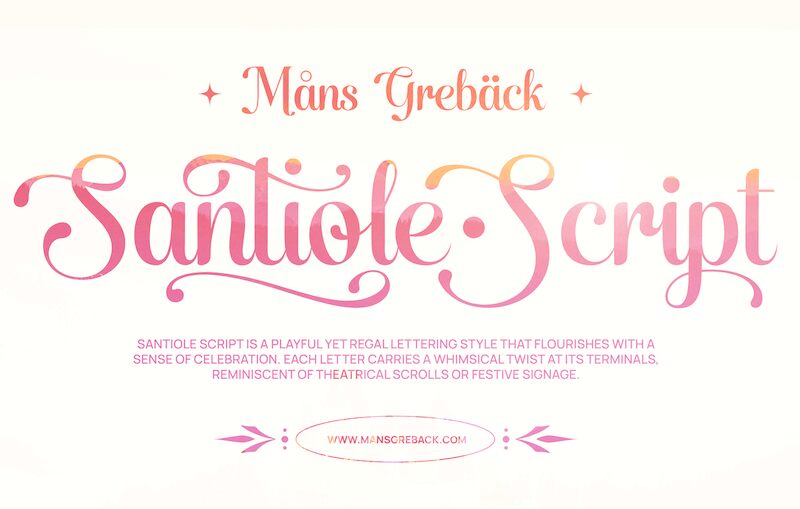
Santiole Script Swash font by Mans Greback is a free ornate calligraphic display font from the Santiole Script family. Built around lavish, ribbon-like swashes, it dances with inky contrast, curling terminals, and airy counters that keep the flourishes readable at headline sizes. The rhythm feels theatrical without slipping into chaos, thanks to steady baselines and confident stroke modulation that give each word a polished, hand-lettered finish.
Using Santiole Script Swash, your titles and marks instantly gain ceremony and romance—great for wedding invitations, boutique logos, wine or candle labels, luxe packaging, event signage, and social media headers. This free font shines when set large and given breathing room; pair it with a quiet sans serif for body copy to let the swashes steal the spotlight.
Use underscore _ to make a swash under any word.
Example: Rose_bud
Use multiple underscores to make different swashes.
Example: Super______man